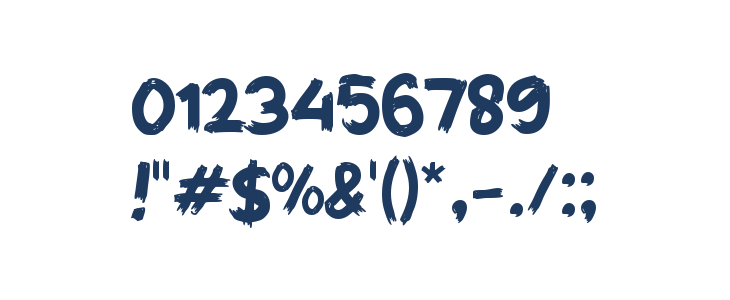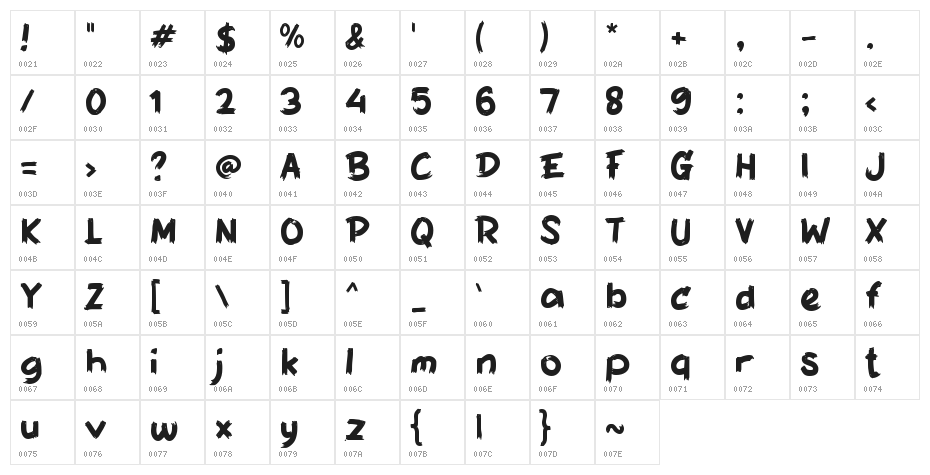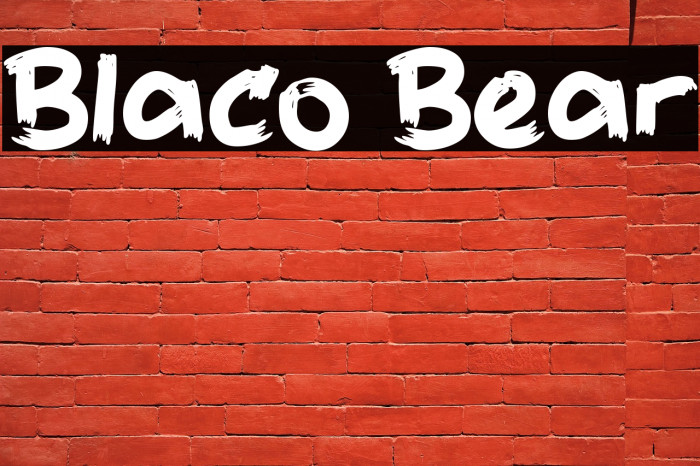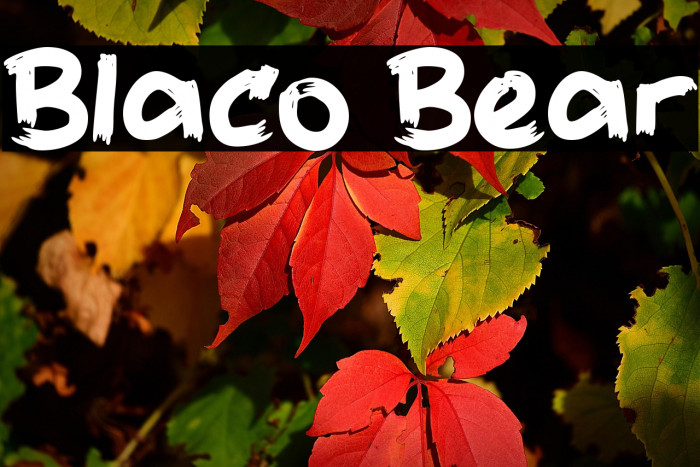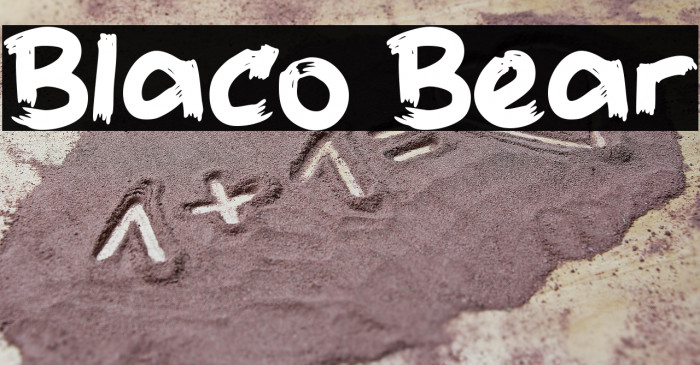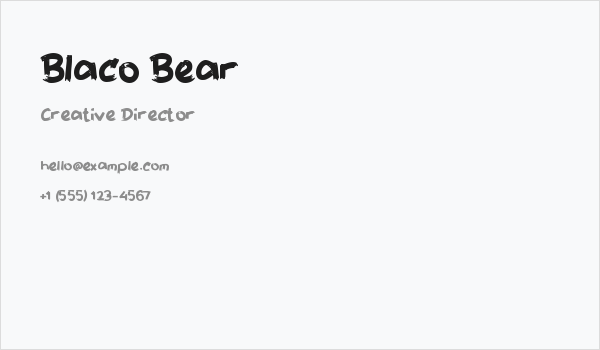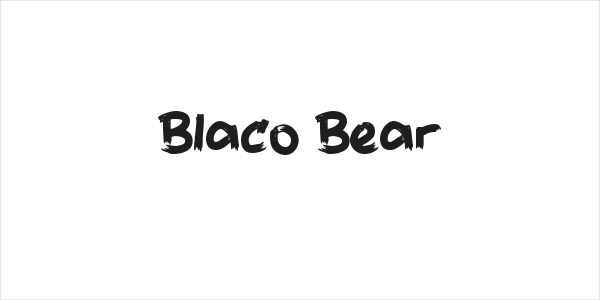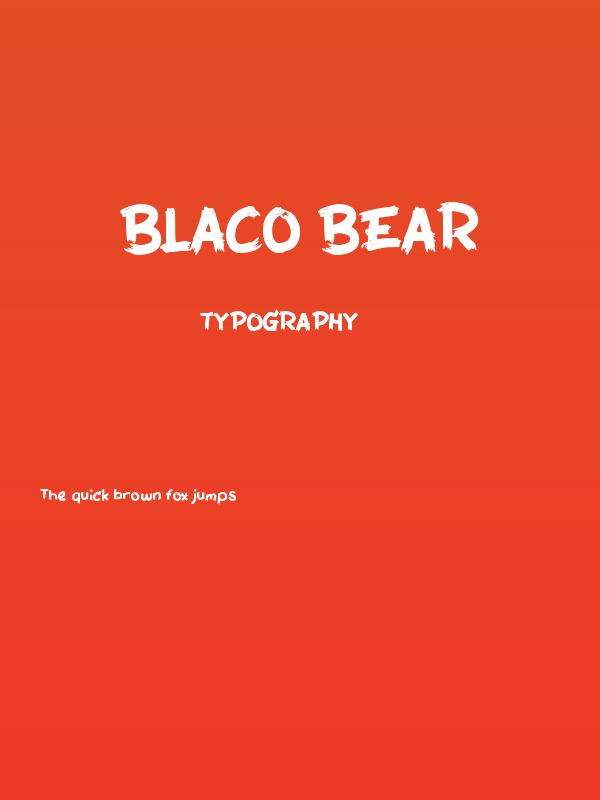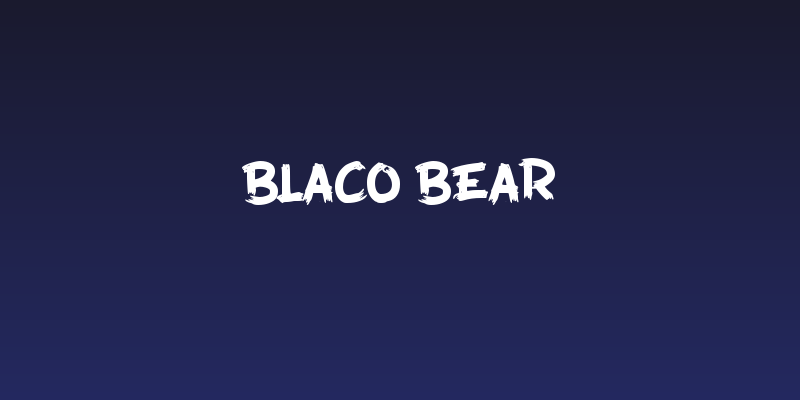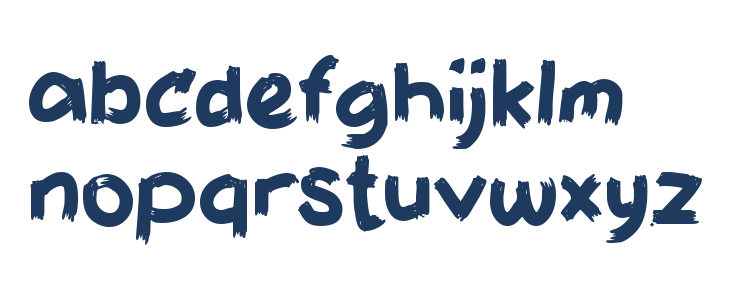
Blaco Bear Font
Blaco Bear Description
This font features a bold, brush-like style with a hand-painted appearance. The strokes are uneven, giving it a dynamic and energetic feel. The characters have a rough texture, reminiscent of paintbrush strokes, adding a sense of movement and spontaneity. The uppercase and lowercase letters maintain a consistent style, with some characters having unique, exaggerated forms that enhance its artistic flair. The numbers and special characters follow the same design principles, ensuring a cohesive look across all elements.
| Proposed Projects | Ideal for artistic projects, posters, branding, and any design requiring a bold, expressive touch. |